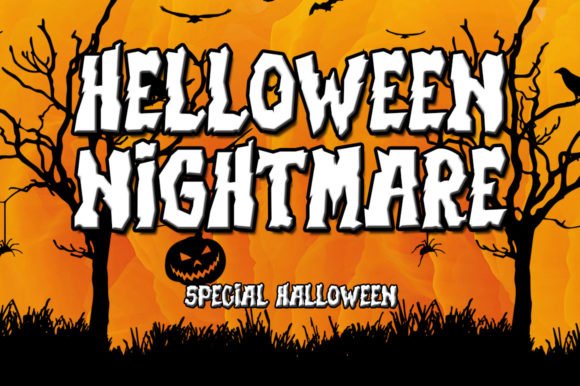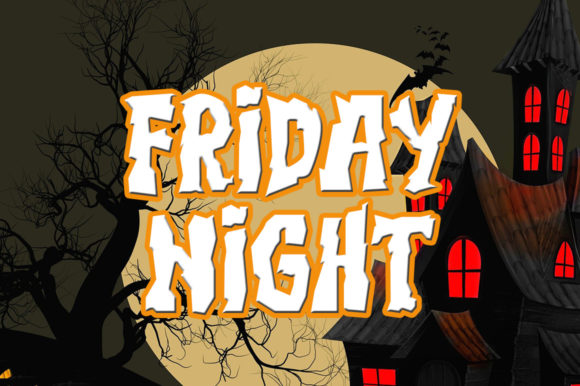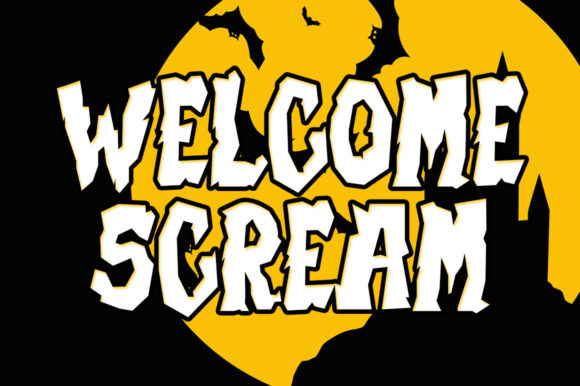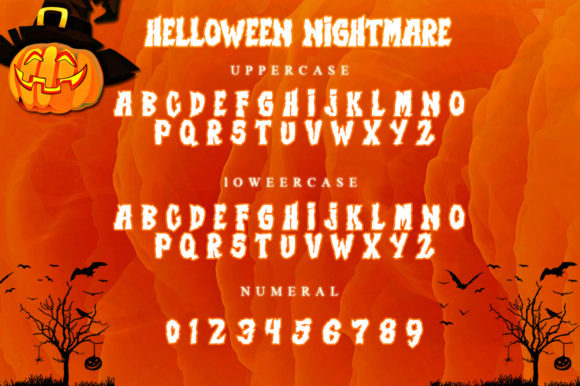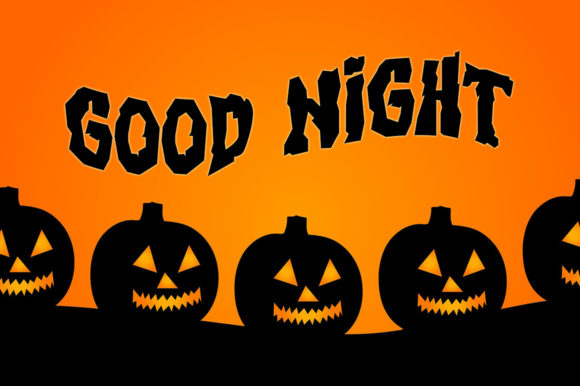
The Perfect Font for a Spooky Season
As the leaves start to fall and the nights grow darker, many of us begin to feel the eerie excitement of Halloween creeping in. It’s that time of year when creativity runs wild and our imagination knows no bounds. We start brainstorming ideas for costumes, decorations, and even typography. And that’s where the Helloween Nightmare Font comes in – a bold and unique display font that’s guaranteed to add a touch of spooky magic to your designs.
This font is not just a pretty face; it’s a versatile tool for designers who want to create eye-catching and hauntingly beautiful projects. With its bold characters and eerie vibe, the Helloween Nightmare Font is perfect for designers who want to tap into the spirit of Halloween and create something truly unforgettable.
Helloween Nightmare Font Key Features
- Font Family: Helloween Nightmare is a sans-serif font family, designed to evoke a sense of eeriness and mystery.
- Unique Characteristics: Features a unique blend of gothic and futuristic elements, with intricate details and subtle texture, making it perfect for horror-themed designs.
- Font Style: Offers a range of font styles, including regular, bold, italic, and bold-italic, allowing for versatility in design applications.
Helloween Nightmare Font Review
I’ve had the chance to work with the Helloween Nightmare Font, and overall, I have mixed feelings about it. On one hand, it’s ✨ bold and attention-grabbing, which can be great for certain design projects that need a strong statement. The font’s distressed and horror-inspired aesthetic can be perfect for Halloween-themed materials or gothic-inspired designs.
However, there are some limitations that I think are worth mentioning. Firstly, the font’s boldness can also make it difficult to read, especially in smaller sizes. ⚠️ The distressed texture can also make it hard to achieve a clean and crisp look, which might not be ideal for all designs. Additionally, the font’s limited character set and lack of international support might be a challenge for designers who work with non-English languages.
- Works well for bold, attention-grabbing designs
- Perfect for Halloween or gothic-inspired themes
- Can be used for headings and titles
Overall, I think the Helloween Nightmare Font is a great addition to any designer’s toolkit, but it’s not a one-size-fits-all solution. Use it sparingly and strategically to add a touch of darkness and boldness to your designs, but be aware of its limitations and potential drawbacks.
For the best results, use the Helloween Nightmare Font in bold or italic styles to add emphasis to your text.
Combine the Helloween Nightmare Font with other fonts to create a unique and eye-catching look.
Cream Soda is a unique, high-contrast font with a mix of modern and vintage elements. It’s perfect for designers who want to add a touch of nostalgia to their projects. This font is ideal for use in graphic design, posters, and advertisements where a bold and eye-catching effect is desired.
Compared to Helloween Nightmare Font, Cream Soda has a more subtle and elegant feel. While Helloween Nightmare Font is bold and attention-grabbing, Cream Soda is more refined and sophisticated.
Great Vibes is a modern script font with a relaxed, casual feel. It’s perfect for designers who want to add a touch of personality to their projects. This font is ideal for use in branding, packaging, and editorial design where a friendly and approachable tone is desired.
Compared to Helloween Nightmare Font, Great Vibes has a more laid-back and organic feel. While Helloween Nightmare Font is bold and attention-grabbing, Great Vibes is more fluid and expressive.